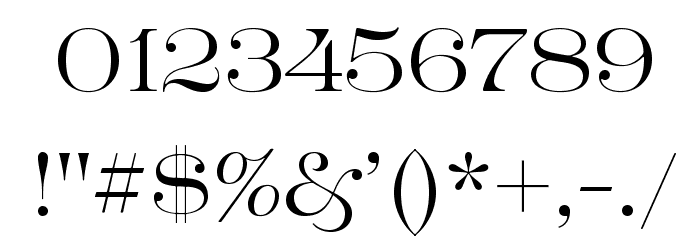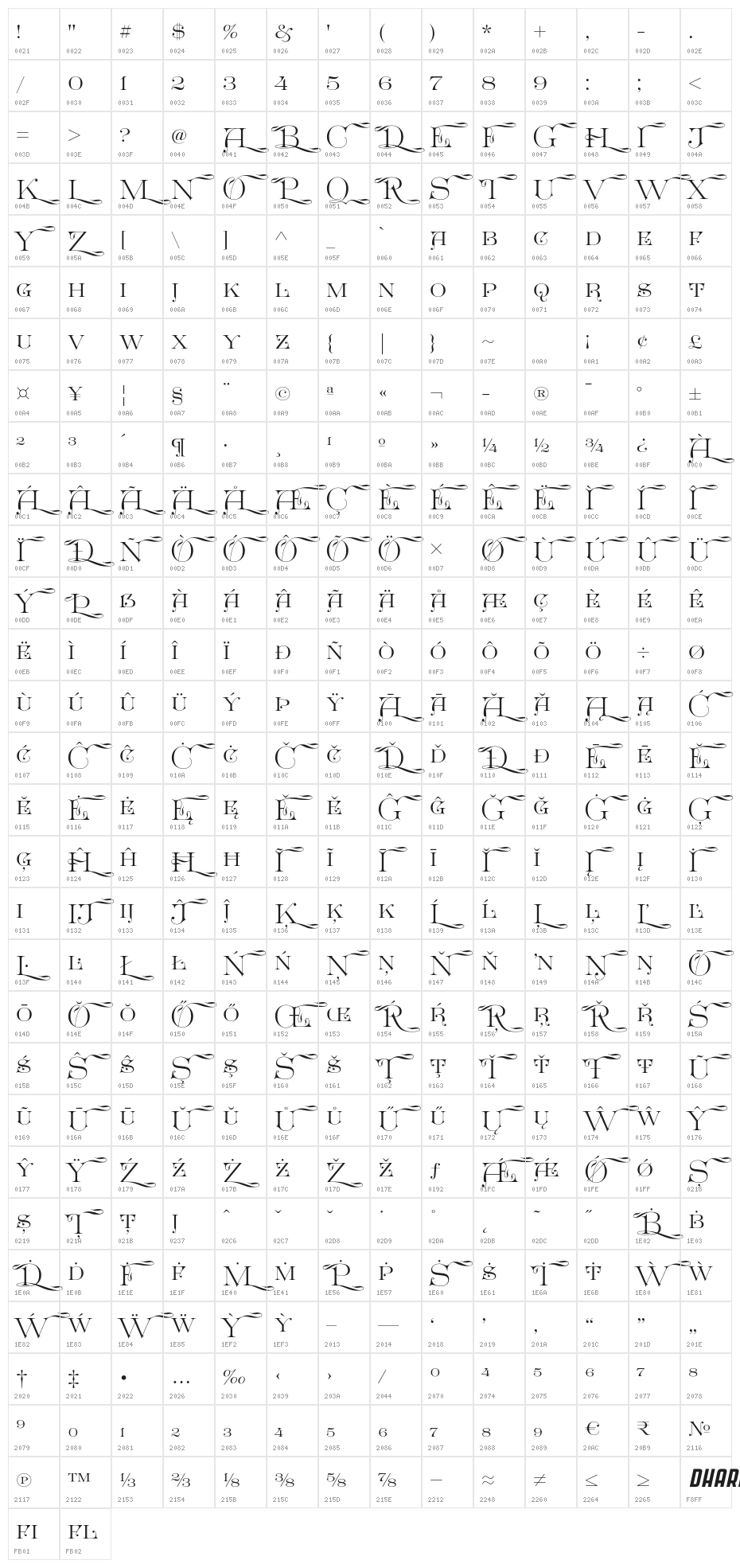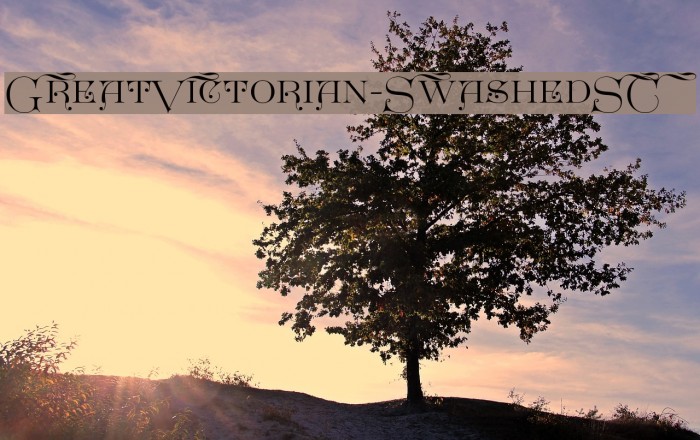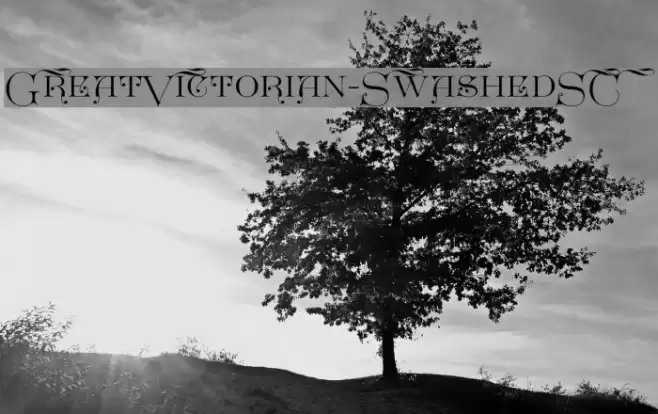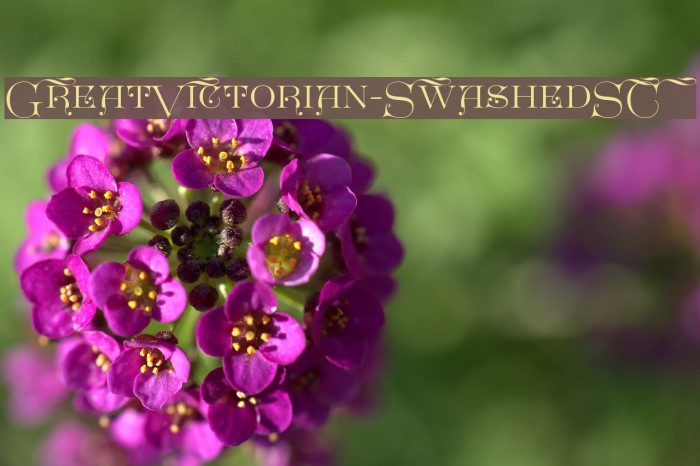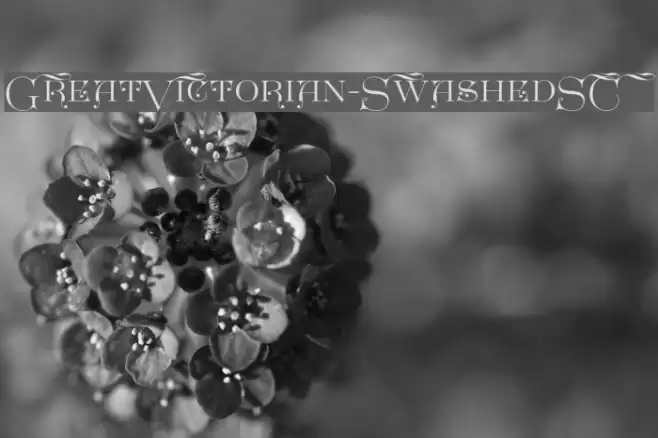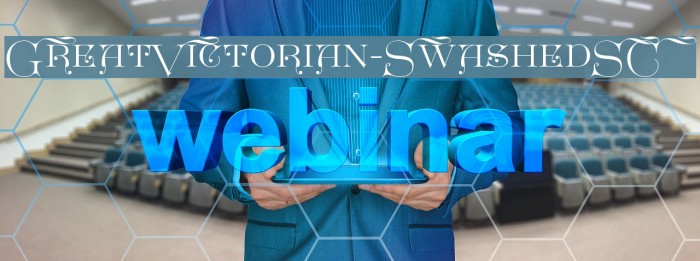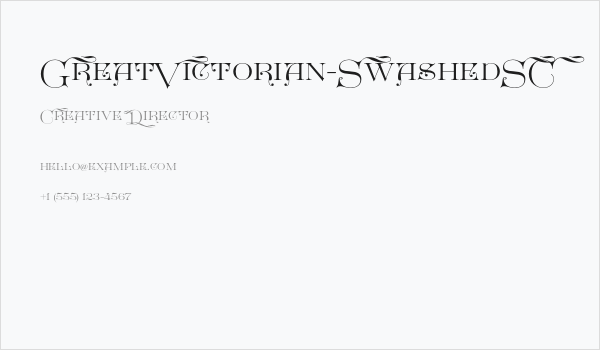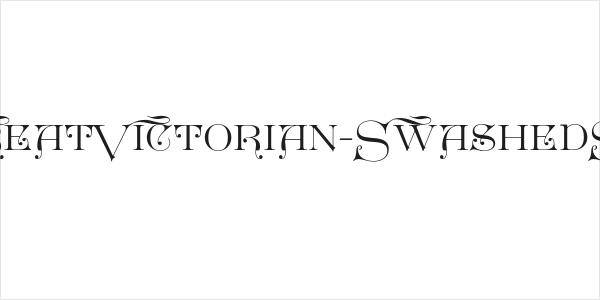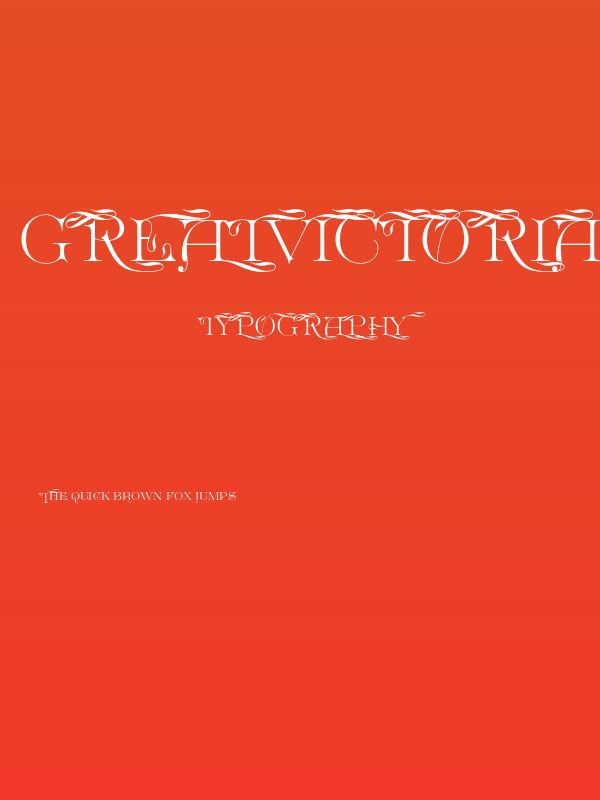
GreatVictorian-SwashedSC Font
GreatVictorian-SwashedSC Description
This font exudes a classic Victorian elegance with its intricate swashes and decorative elements. The uppercase letters are adorned with elaborate flourishes that give a sense of grandeur and sophistication. The lowercase letters maintain a more restrained style, yet they complement the ornate uppercase beautifully. The numerals are designed with a similar attention to detail, ensuring consistency throughout. Special characters are crafted with unique embellishments, adding to the overall decorative appeal. This font is perfect for projects that require a touch of vintage charm and elegance.
| Proposed Projects | Ideal for wedding invitations, vintage-themed branding, book covers, and decorative signage. |